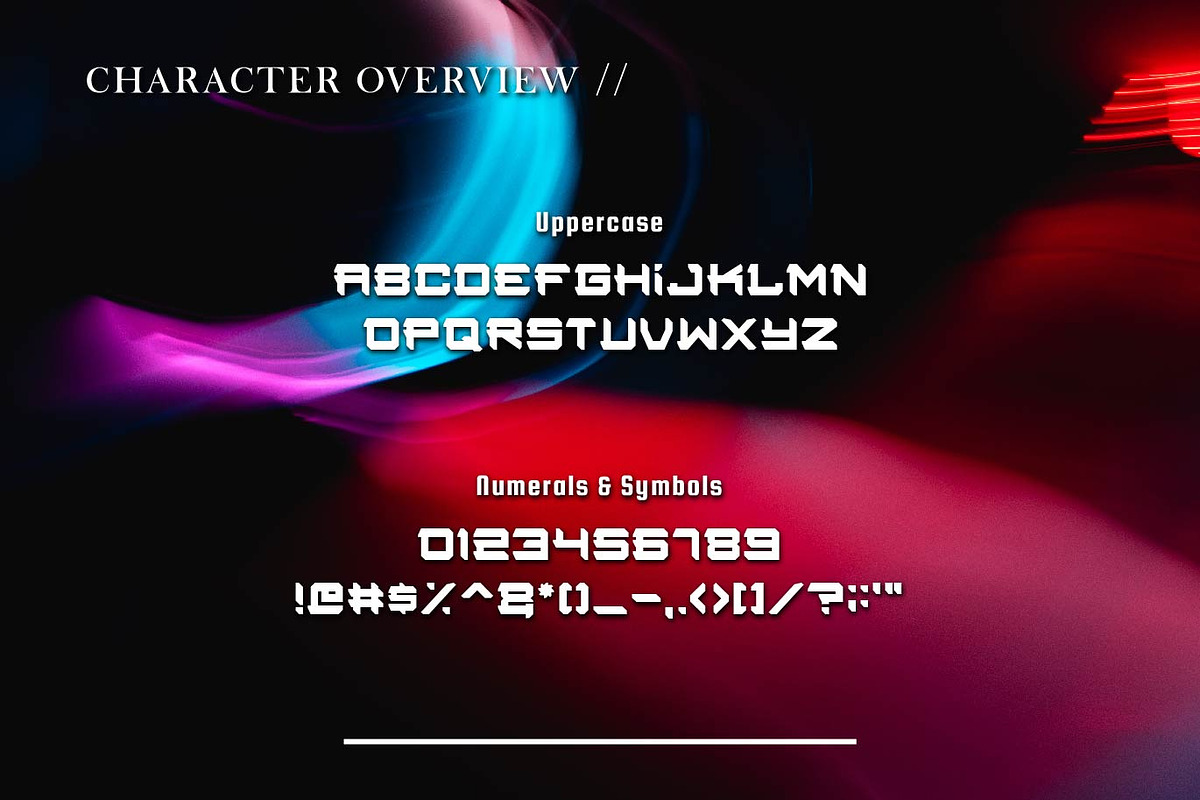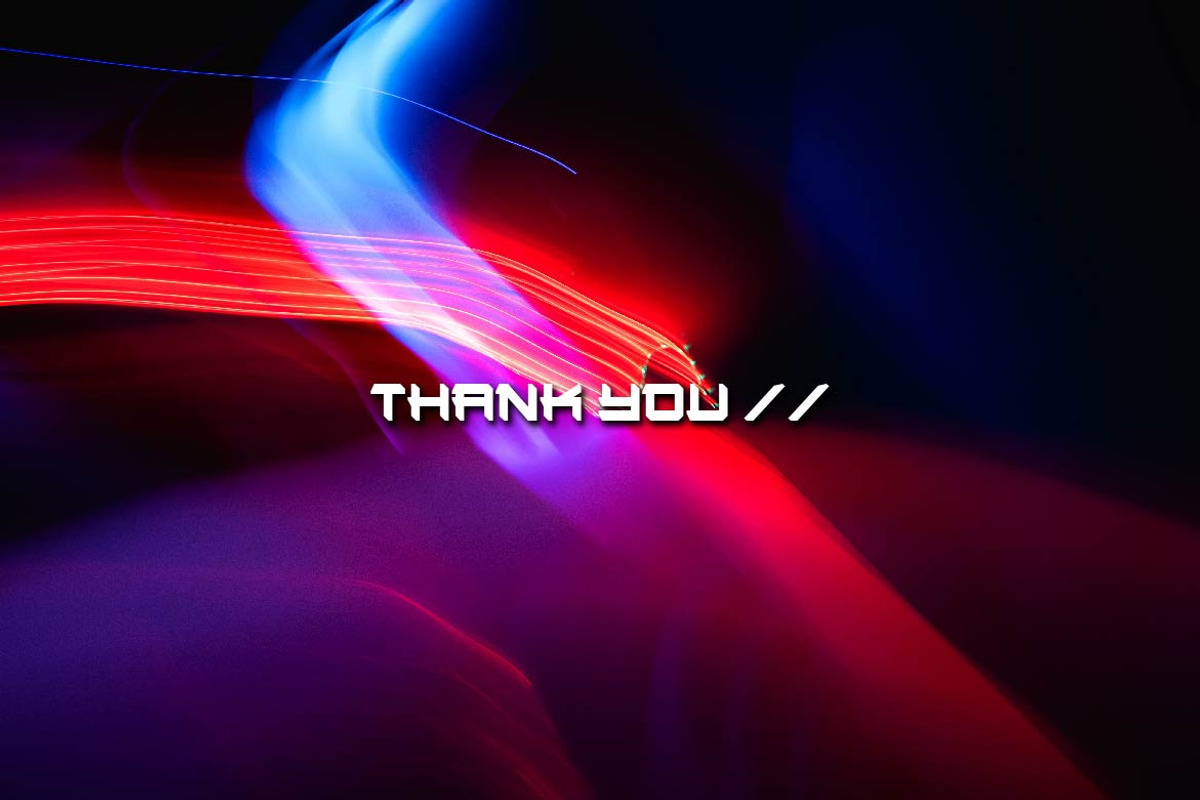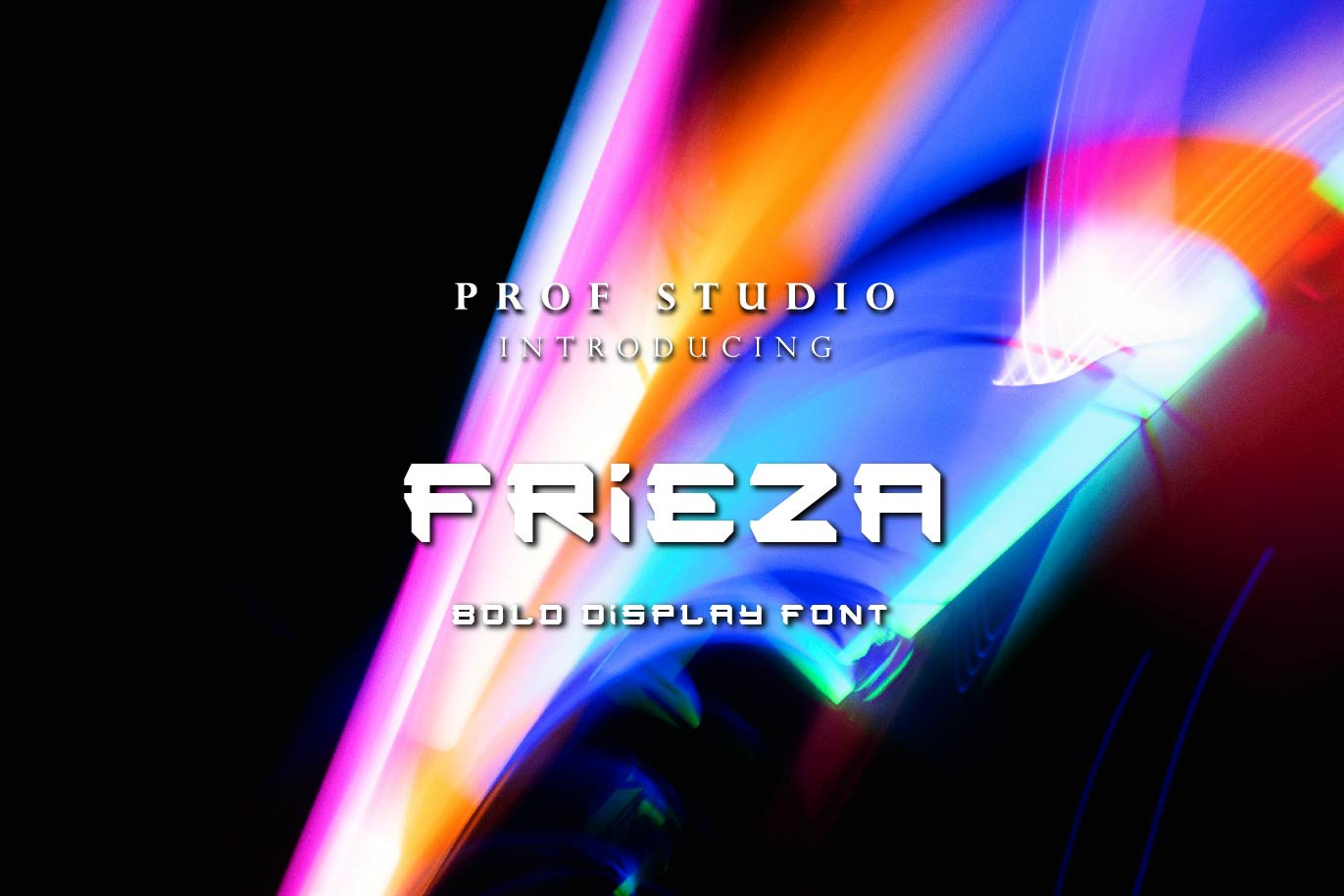
Frieza - Future Bold Display Font
Hi Ladies and Gentleman ! Proudly present Future Bold Display Font “Frieza” for your business.
Frieza - Future Bold Font which can be interpreted professional. we keep this font looks modern, bold, readable, stylish, catchy and easy to use.
Frieza - is the great choice for event design ,magazine, brand design, poster, and many other design project. Frieza here to make your work to high level!!!